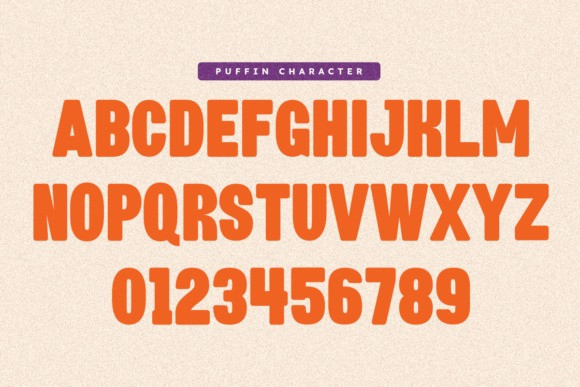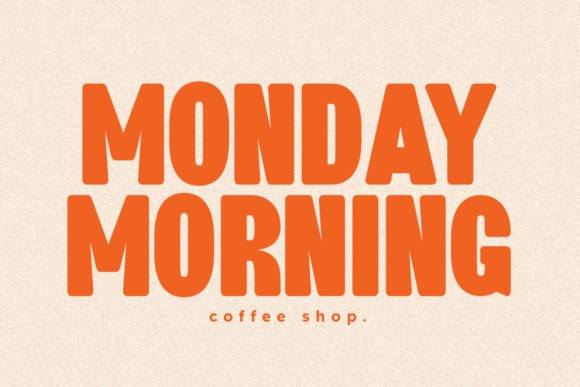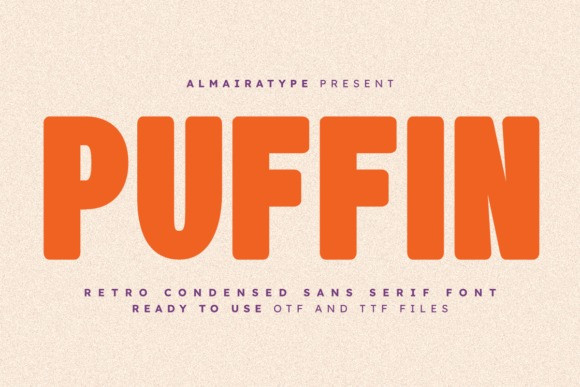
Puffin Font
Puffin Font  is a bold retro condensed sans serif font uniquely designed to deliver a high-impact vintage aesthetic to your modern creative projects. Featuring a robust, compressed structural alignment and friendly rounded geometric contours, this typeface beautifully bridges the gap between classic 70s nostalgia and contemporary commercial design trends. It stands out as an exceptional choice for professional graphic designers, independent clothing brands, custom apparel makers, passionate craft lovers, and Print on Demand (POD) entrepreneurs looking to create high-converting merchandise items. Whether you are building an eye-catching corporate brand identity, designing trendy streetwear t-shirt lines, customizing standout product packaging, or producing striking social media posters, Puffin ensures maximum readability and a distinct professional edge. Its ultra-clean vector outlines guarantee full technical compatibility with popular craft cutting software and digital vinyl plotters like Cricut and Silhouette, offering a flawless, hassle-free weeding experience for personalized stickers, mugs, and DIY craft projects. Elevate your commercial branding toolkits and artistic design portfolios with the inviting, powerful, and versatile character of the Puffin typeface.